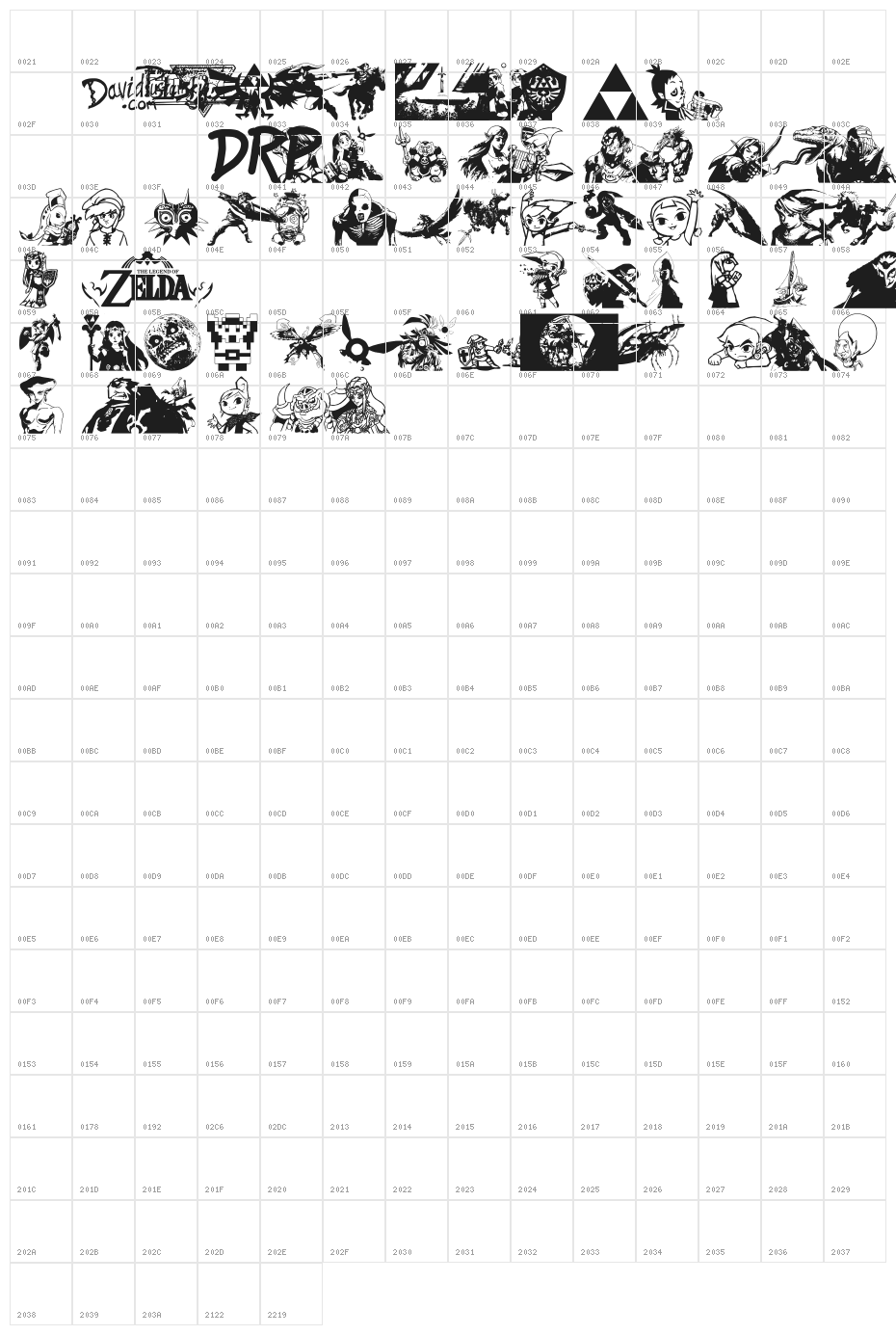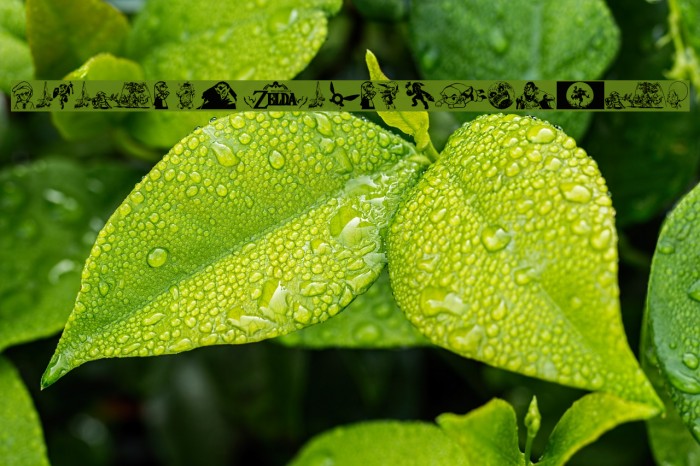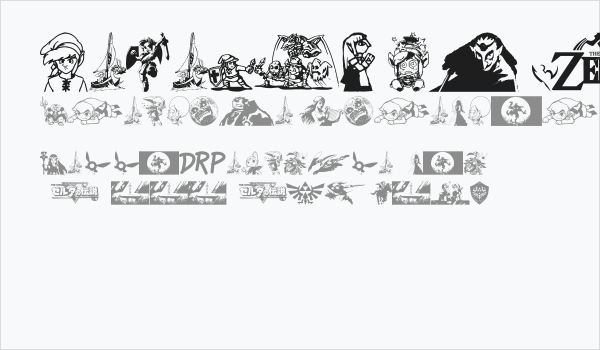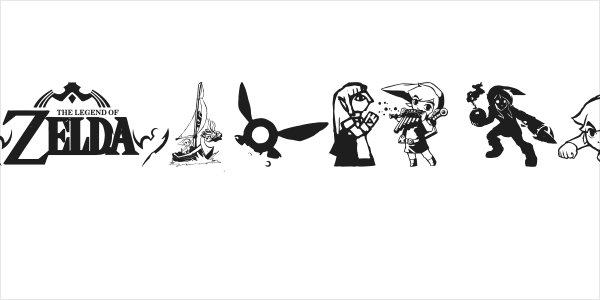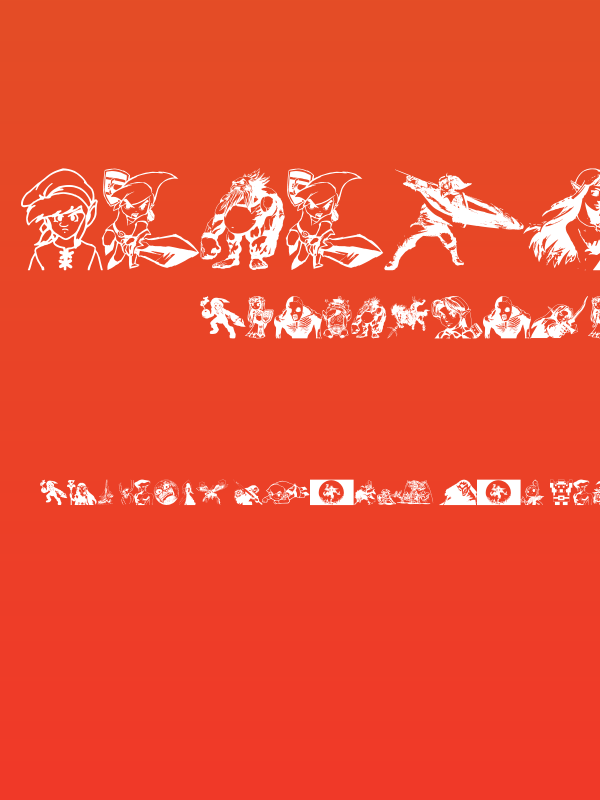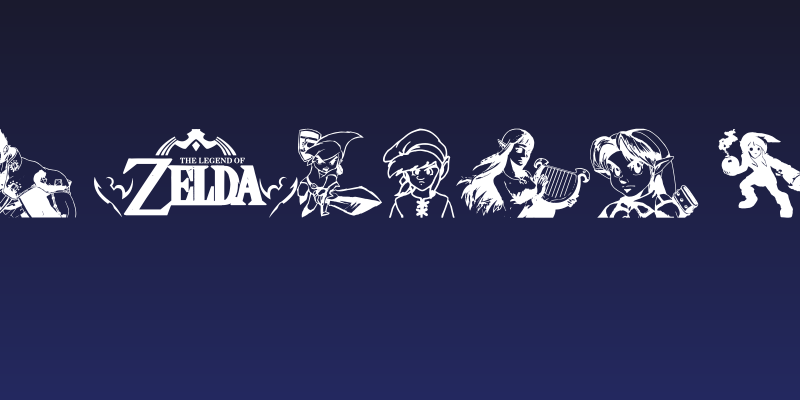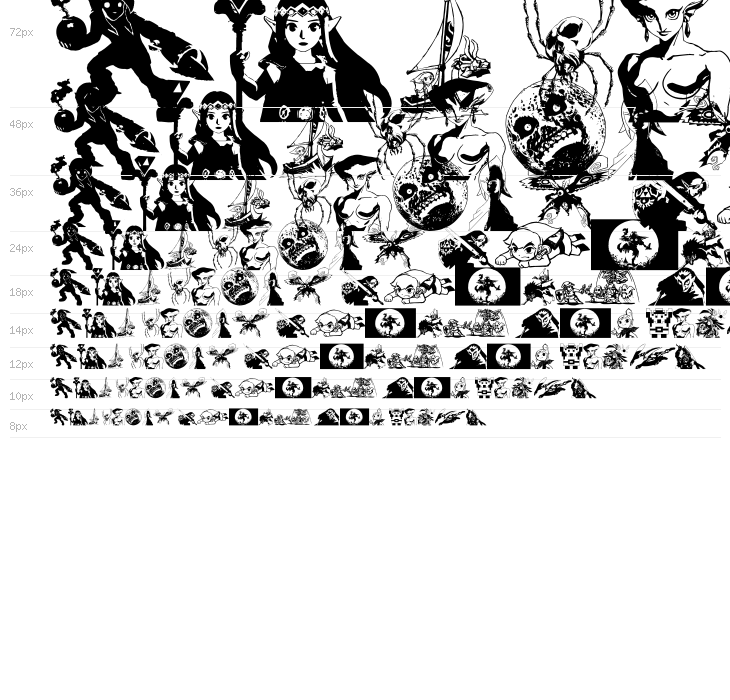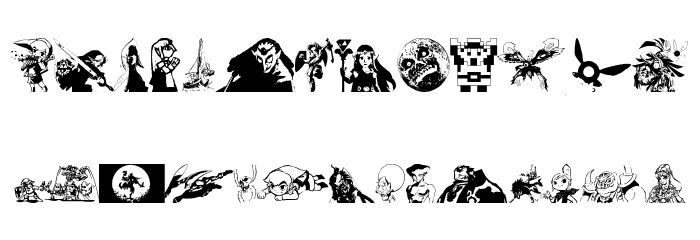
Legend Of Zelda TriFont Font
Legend Of Zelda TriFont Description
A decorative dingbat font featuring detailed black-and-white illustrations of characters, symbols, and scenes inspired by a fantasy adventure video game series. Each glyph is a unique pictorial icon rather than a traditional letterform, with high-contrast, bold outlines and a variety of intricate designs.
| Overall Style | Decorative, Thematic, Fantasy |
| Use Case | Logos, Posters, Themed graphics, Crafts |
| Proposed Projects | Fan art, themed party invitations, posters, game-related crafts, collectibles, custom merchandise. |